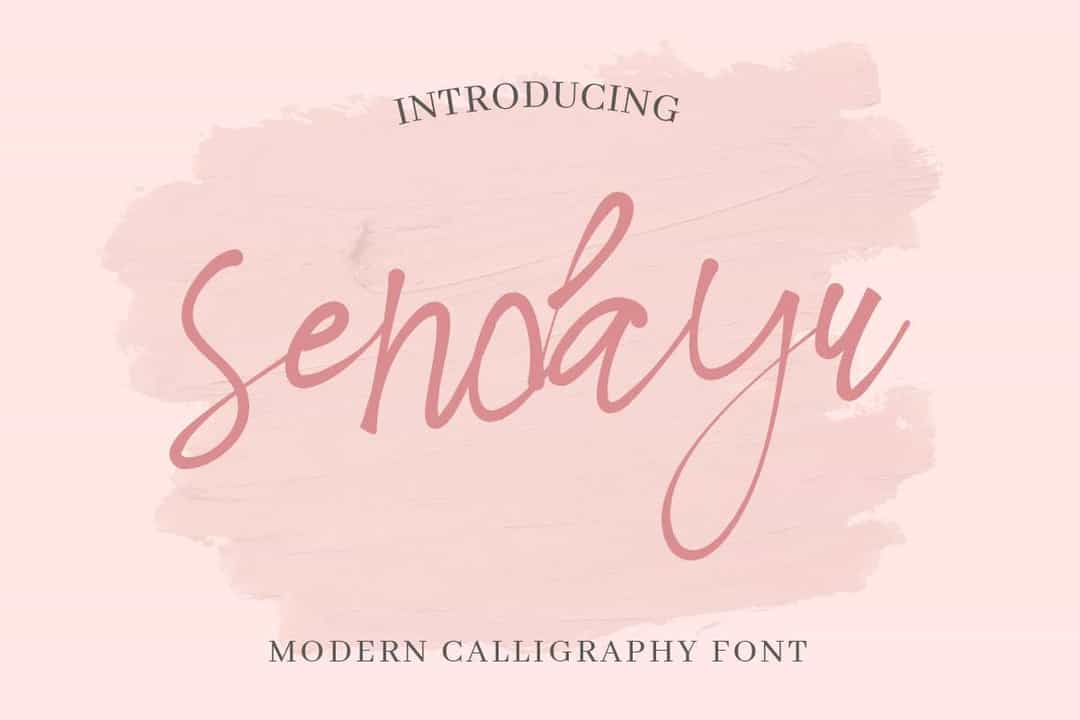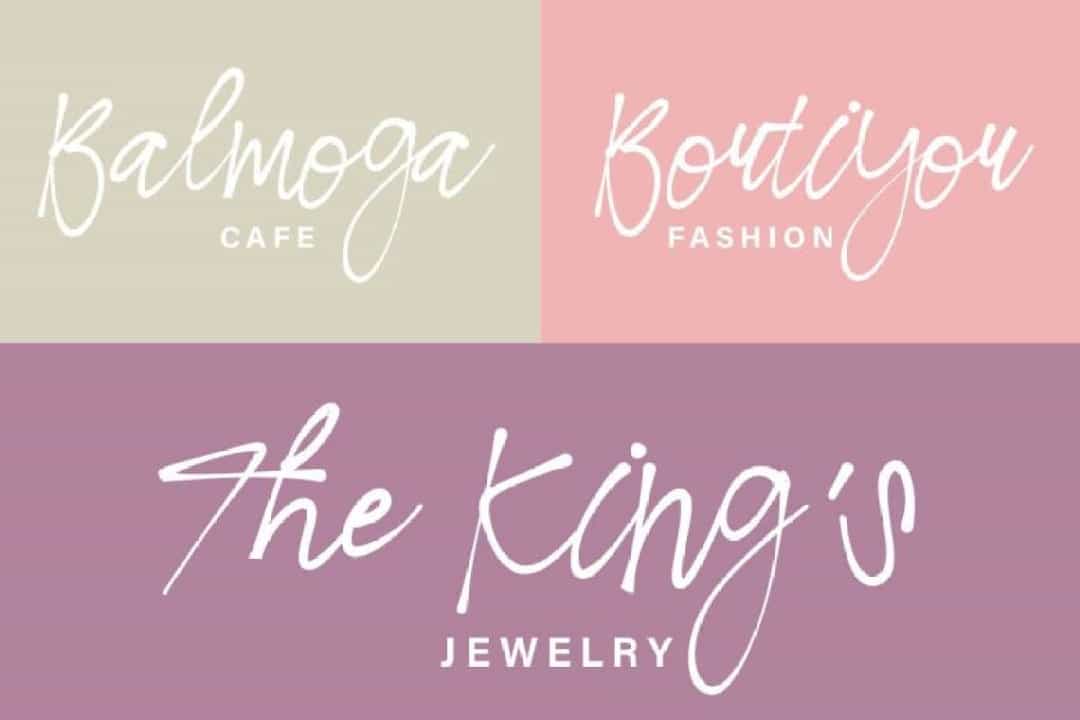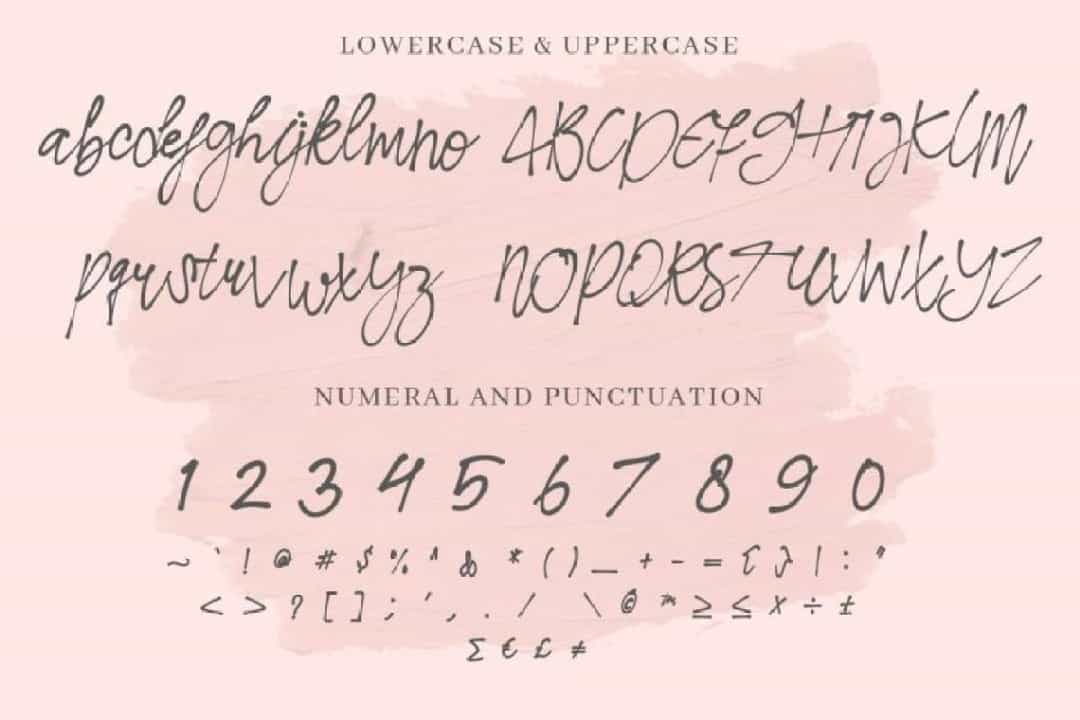
Sendayu is a unique script typeface that is based on calligraphy that features brush-style. The font is stunning with a gorgeous characters set that is perfectly managed by kerning and spaced well. The design style of this font is elegant, classic, stylish sophisticated and classic calligraphic style.